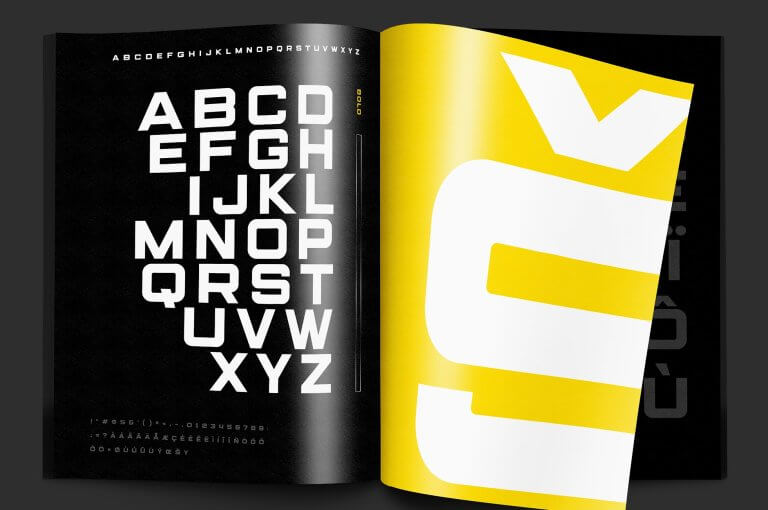
Marsek Sans Serif Font
Marsek, a gorgeous sans serif typeface, is now available. MOCOSANS created it and shared it. Marsek is a sturdy and stylish sans serif typeface designed to emphasize large headlines, titles, single characters, and brief descriptive paragraphs. There are three weights available: bold, demi, and light, which you can mix and match to create unique combinations. The font is available in formats such Marsek Bold (otf/ttf), Marsek Demi (otf/ttf) and Marsek Light (otf/ttf).
Because the texture comes in three weights, you can utilize it in anyway you like. The typeface has a distinct, elegant vibe that may help any project stand out. The Font is compatible with Windows, Apple/Mac, Linux, Cricut, Silhouette, and other cutting machines. It’s simple to convert the lovely typography to a web font. To access all of the alternate characters, use an application that supports OpenType features, such as Adobe Illustrator CS, Adobe Indesign, or CorelDraw X6-X7. Don’t be late to add this font to your font list.
This Font is ideal for logos, wall signs, cards, advertisements, t-shirts, banners, flyers, posters, merchandise, and many more projects! On most types of wallpaper, the typeface will look amazing. The font will also look great on a magazine cover. The font looks great with the background of black colour, although it also looks great with other dark colours.